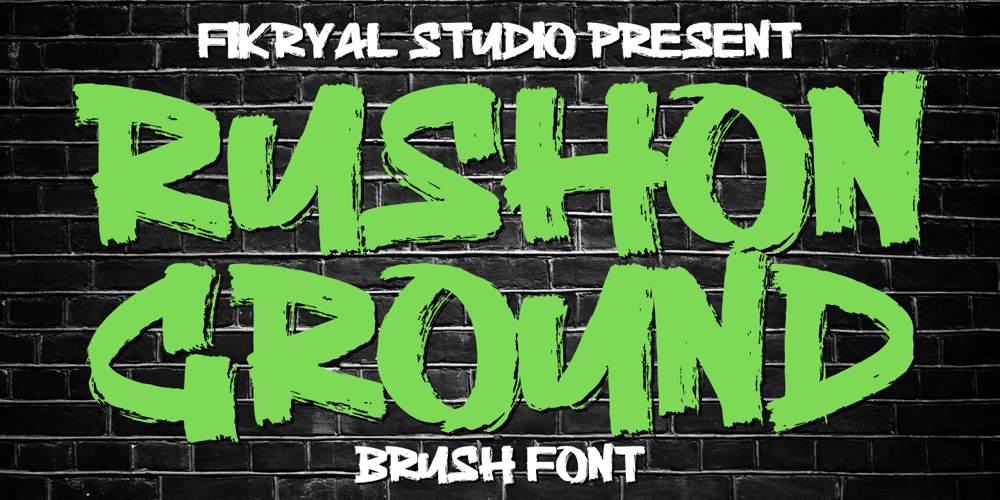
Rushon Ground Font Family was designed by Muhammad Fikry and published by Fikryal. Rushon Ground contains 1 styles and family package options. Rushon Ground is a strong and bold brush display font, perfect for designs that require a powerful and eye-catching character. With its dynamic hand-drawn style, this font is ideal for logos, headlines, posters, and other creative projects that need an energetic touch. Get Rushon Ground to add strength and uniqueness to your designs.